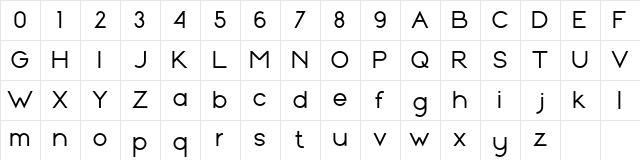
Camaro Sans
Design Context for Camaro Typeface
Camaro offers clean, dependable letterforms without strong stylistic allegiance, making it a practical choice for designers who need flexibility.